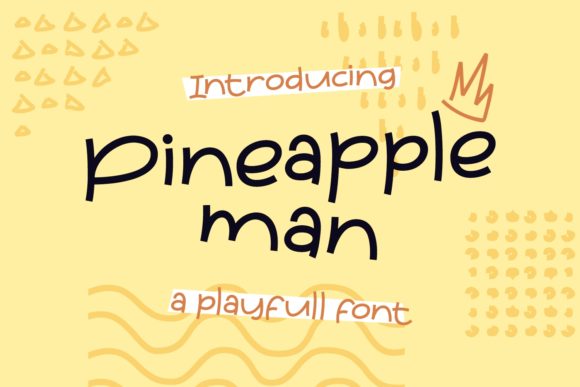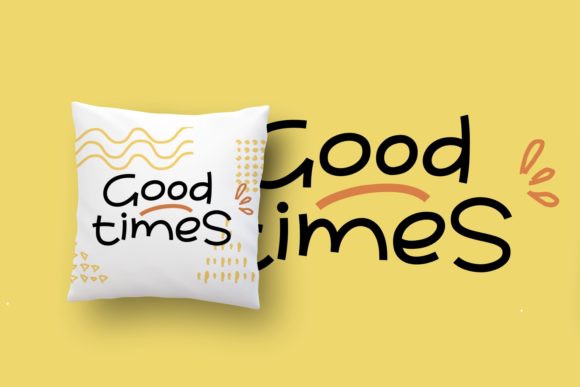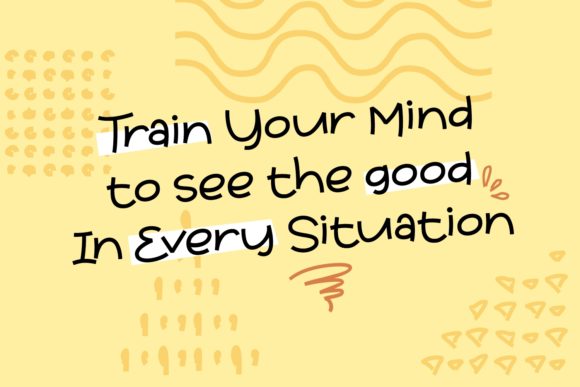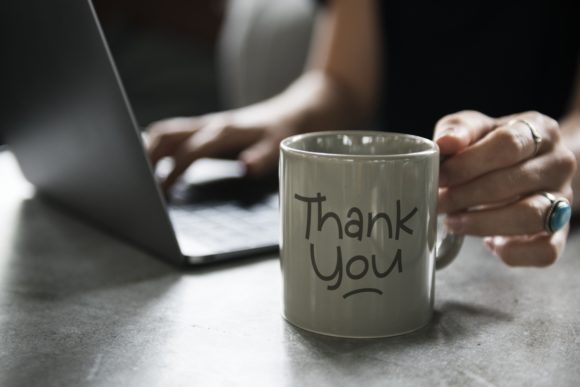
HomeScript FontsPineapple Man Font Script Fonts Pineapple Man Font FacebookXPinterestWhatsApp Pineapple Man Font Poster 2 Pineapple Man Font Poster 3 Pineapple Man Font Poster 4 About Pineapple Man Font Fusing whimsical lettering with a contemporary look, Pineapple Man delivers an incredible font experience. DOWNLOAD NOW People also explored Stronger Font Magnolin Deliciousy Font Cocofuntza Font Bluettella Font Stationary Mockup / Real Photo Scens Freshtea Font ABS Monogram Font Araina Font Barbie Font 290 0 TagsPineapple Man Font Previous articleStrings FontNext articleMurnita Signature Font LEAVE A REPLY Cancel reply Comment: Please enter your comment! Name:* Please enter your name here Email:* You have entered an incorrect email address! Please enter your email address here Website: Save my name, email, and website in this browser for the next time I comment. Personal Use Free Squariess Personal Use Free Read more about this font Good Luck Personal Use Free Read more about this font Adelfa Personal Use Free Read more about this font Aliqa Personal Use Free Read more about this font BLOG 5 Fonts That Will Dominate Design Trends in 2026 5 Fonts for 2026 That Will Dominate Design Trends Typography plays a critical role in visual communication, and as we look ahead to 2026, it’s... Modern Sans-Serif Fonts That Brands Love in 2025 Using Fonts in Digital Marketing: Tips to Strengthen Your Brand Identity Elegant Wedding Invitation Fonts – Handwritten & Script Fonts